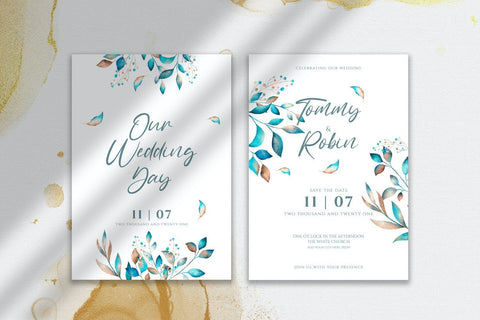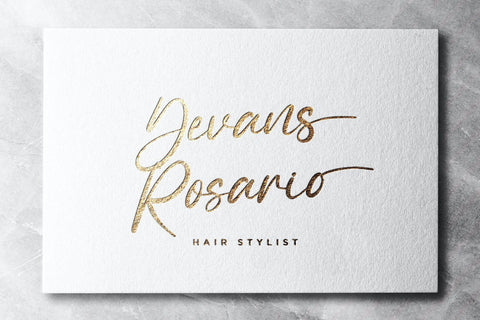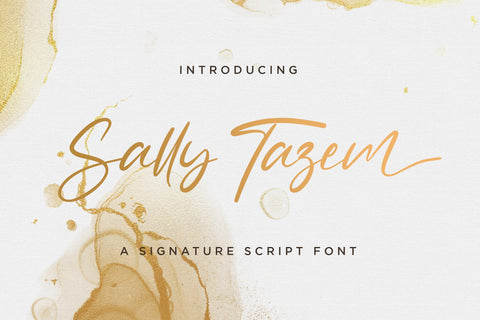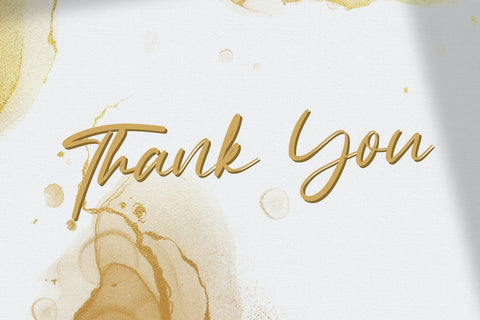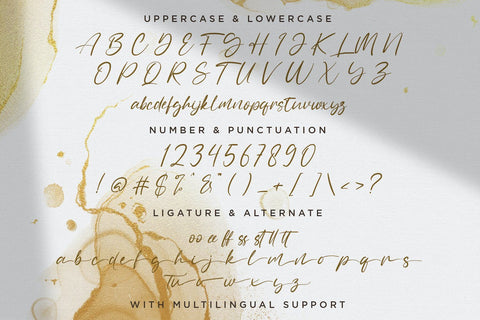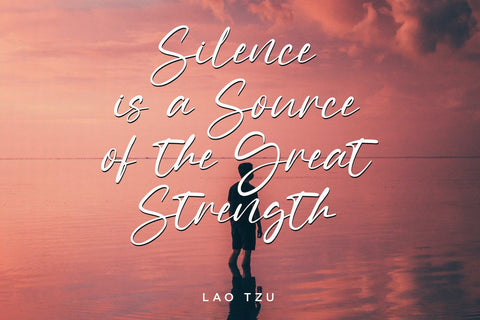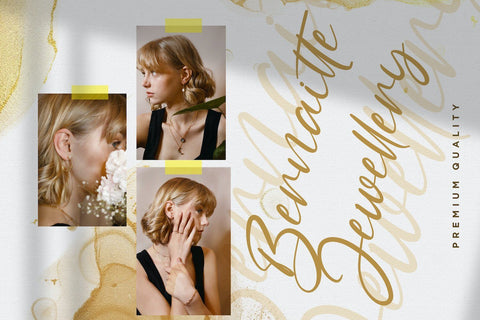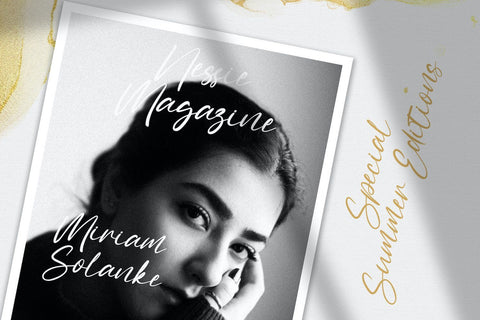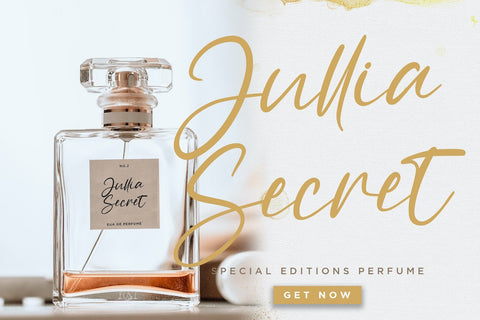
Sally Tazem - Handwritten Font
Introducing Sally Tazem - Handwritten Font
Sally Tazem is a delicate, elegant and flowing handwritten font. It has beautiful and well balanced characters and as a result, it matches a wide pool of designs. Add it to your most creative ideas and notice how it makes them come alive!